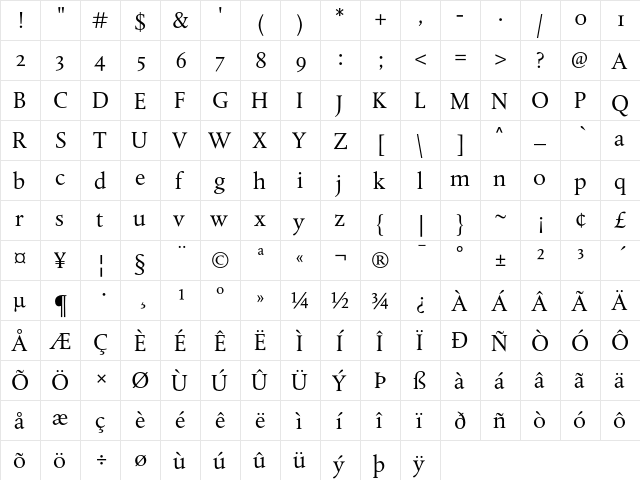
DTL Albertina ST Regular
Design Context for DTL Albertina Typeface
DTL Albertina takes a measured approach to typography — its balanced proportions and neutral character make it a reliable workhorse for both digital and print work.